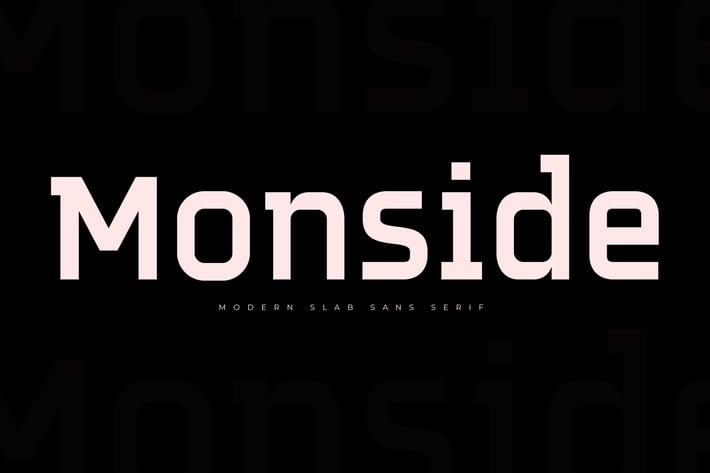
Monside Sans Serif Fonts
Monside Font
Monside Font is a unique, versatile display font with a unique, elegant, and modern style. It is a display font perfect for branding projects, logos, social media posts, product packaging, labels, etc.